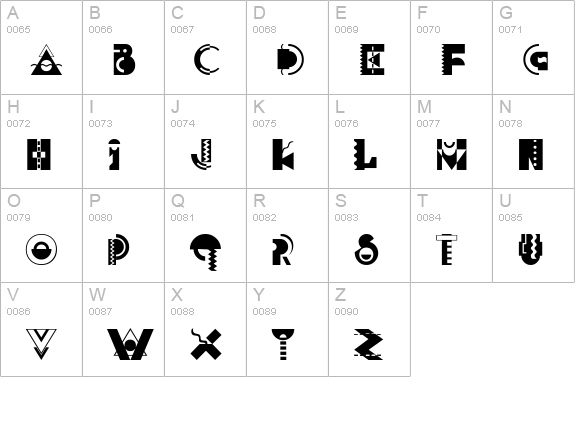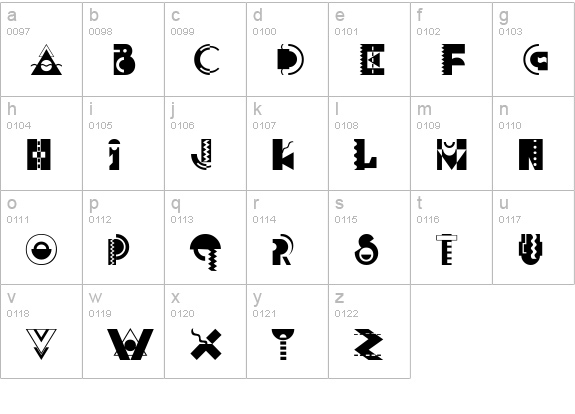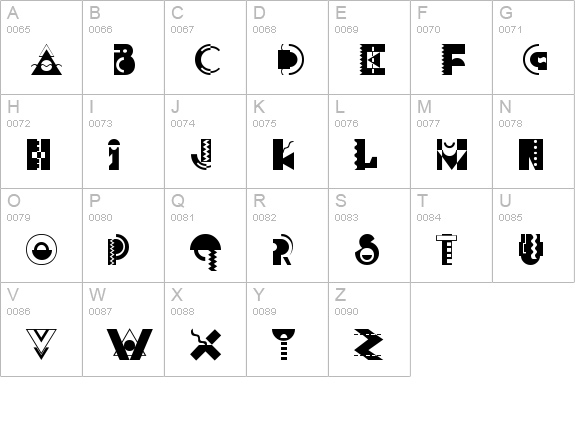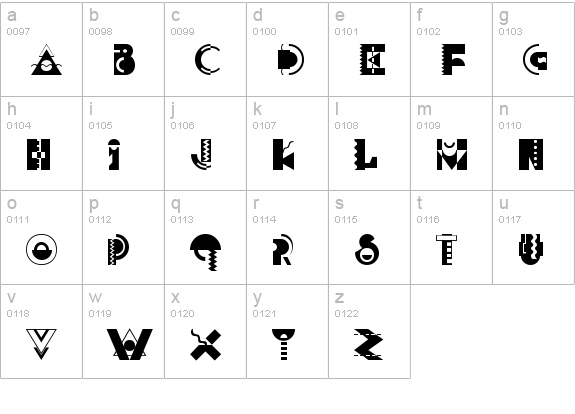
Carnivale Font Details
Carnivale font is a whimsical and playful typeface that brings a sense of festivity to any design. With its bold and eye-catching letterforms, Carnivale is perfect for creating posters, invitations, and other designs that need a touch of fun and excitement. This unique font is inspired by the vibrant colors and lively atmosphere of a carnival, making it the perfect choice for projects that require a touch of whimsy. What makes Carnivale font even more appealing is that it is completely free to download! You can easily access this delightful typeface at FontsMarket.com, where you can add it to your collection of creative tools without any cost. Whether you're working on a birthday party invitation, a circus-themed poster, or any other project that needs a touch of playfulness, Carnivale font is sure to bring your designs to life. Download it now and let your imagination run wild with this fantastic free font!